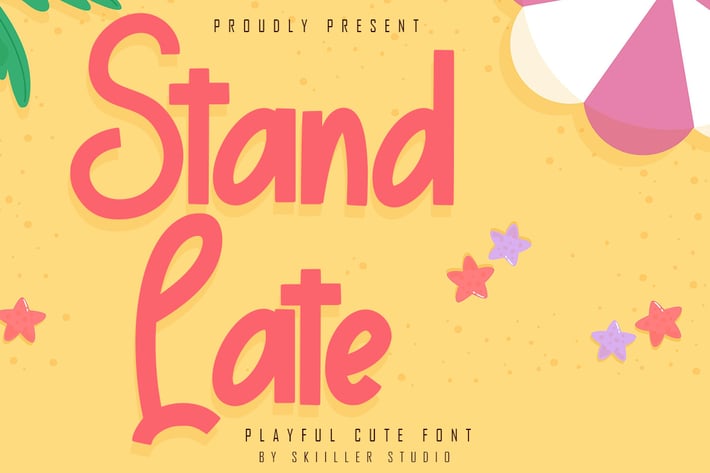
Stand Late - Playful Cute Font
Stand Late is a playful and cool display font. This font is perfect for children themed designs, especially when combined with bright colors.